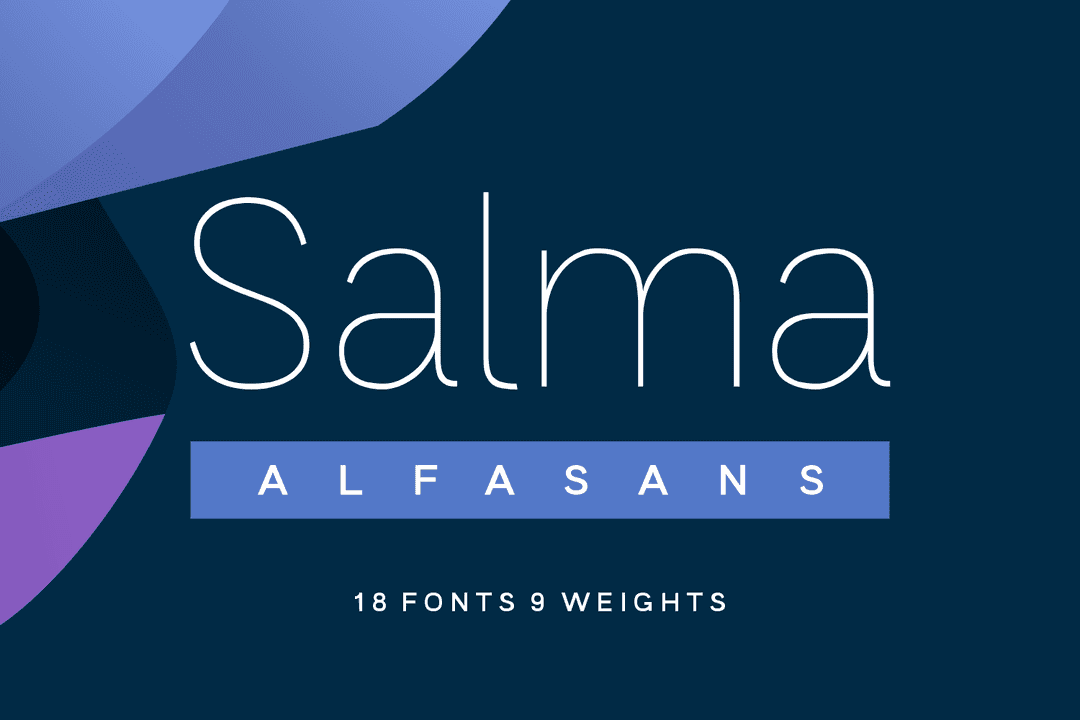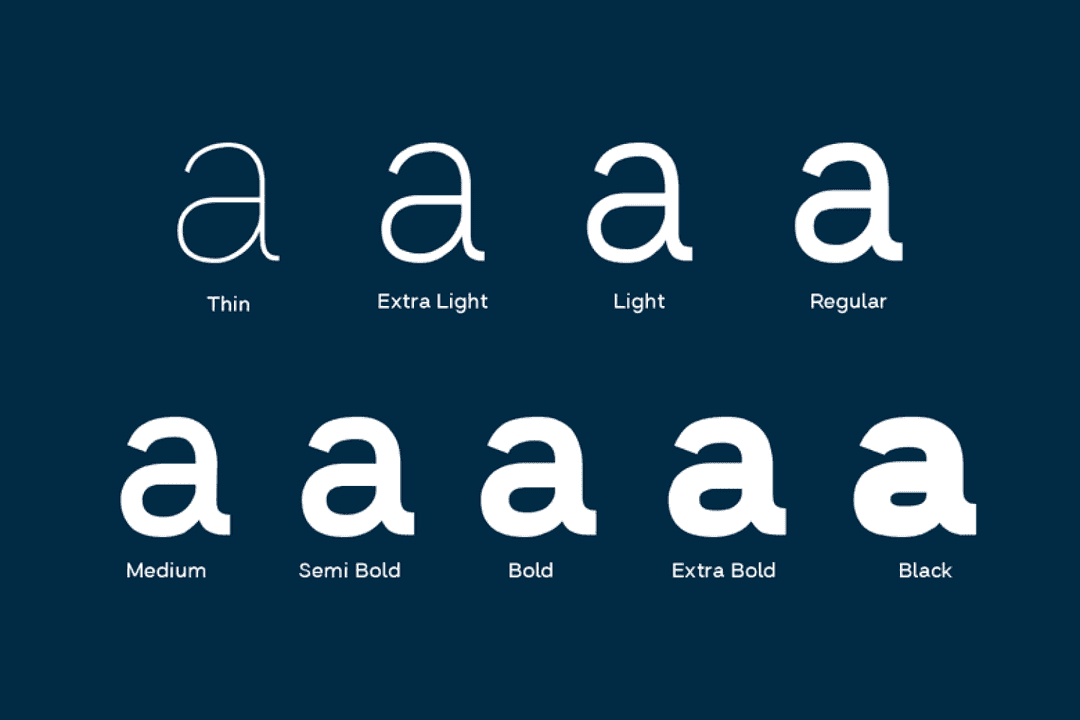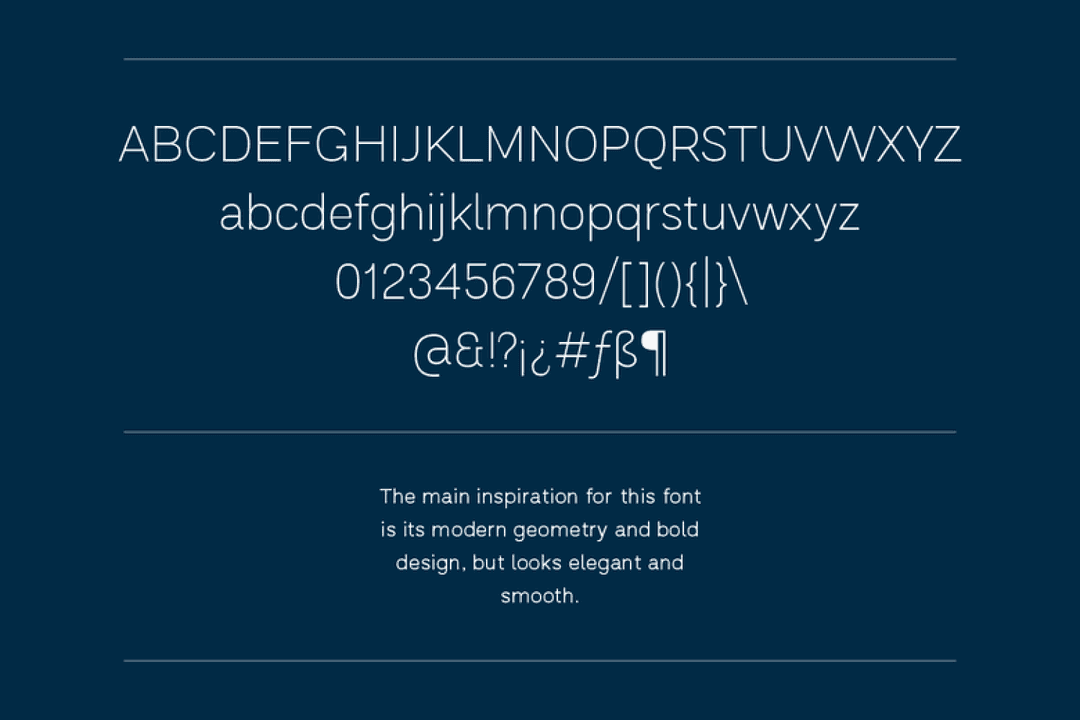
Salma Font Family is an ultramodern and thin sans serif style that fits well into many projects. Take note of its striking features as you design! Include it in your design ideas and observe its impressive characteristics!